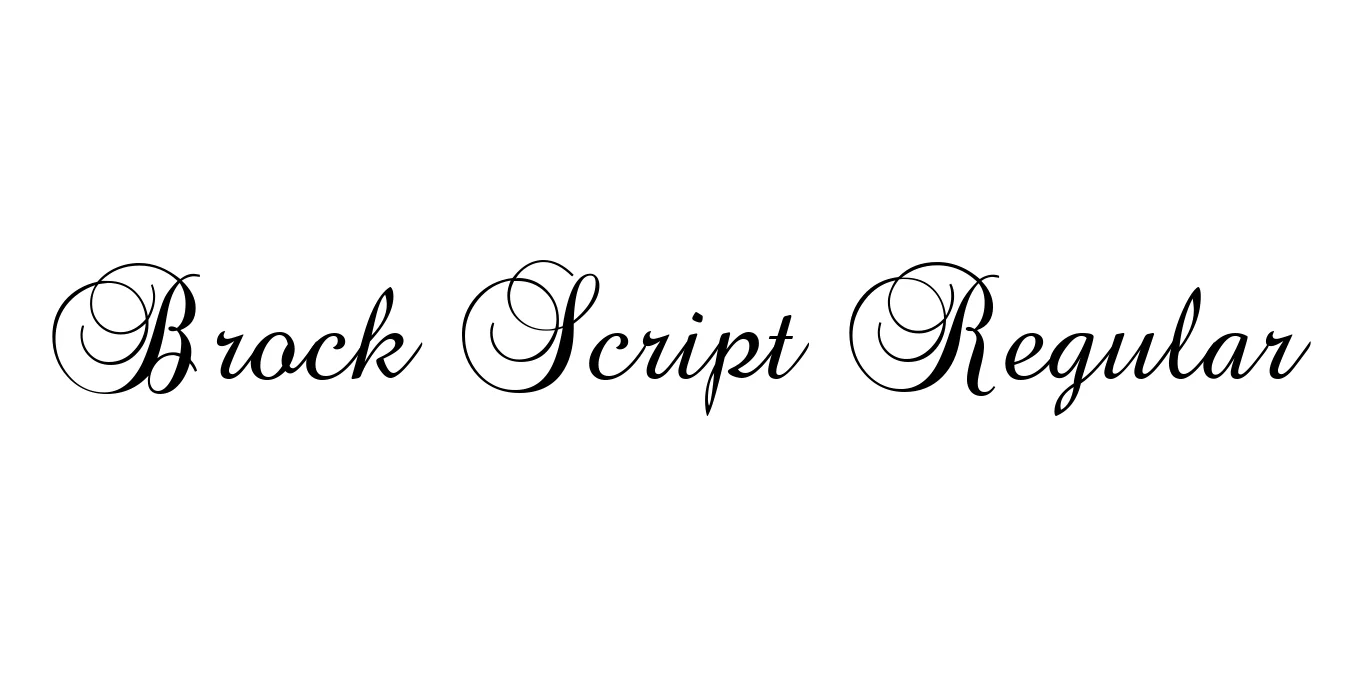
Brock Script Regular
Designed by Dieter Steffmann
Brock Script Regular is an elegant and sophisticated formal script typeface designed by the prolific German typographer Dieter Steffmann. Known for its fluid curves and traditional calligraphic aesthetic, this font captures the essence of 18th and 19th-century copperplate handwriting. The design features high-contrast strokes and decorative flourishes that provide a sense of luxury and timelessness to any creative project.
This typeface has become a popular choice for designers looking to convey class and formality. Often used in high-end invitations and official documentation, Brock Script remains a staple in the world of free-to-use digital typography due to its clean execution and classic appeal. It stands as a testament to Steffmann's dedication to digitizing historical letterforms for modern graphic design applications.
Brock Script Regular Best Uses
Ideal for elegant invitations, RSVP cards, and envelopes.
Perfect for formal diplomas, awards, and professional recognition.
Used for luxury logos, perfumes, and high-end boutique labels.
Adds a personal, sophisticated touch to holiday and special occasion cards.